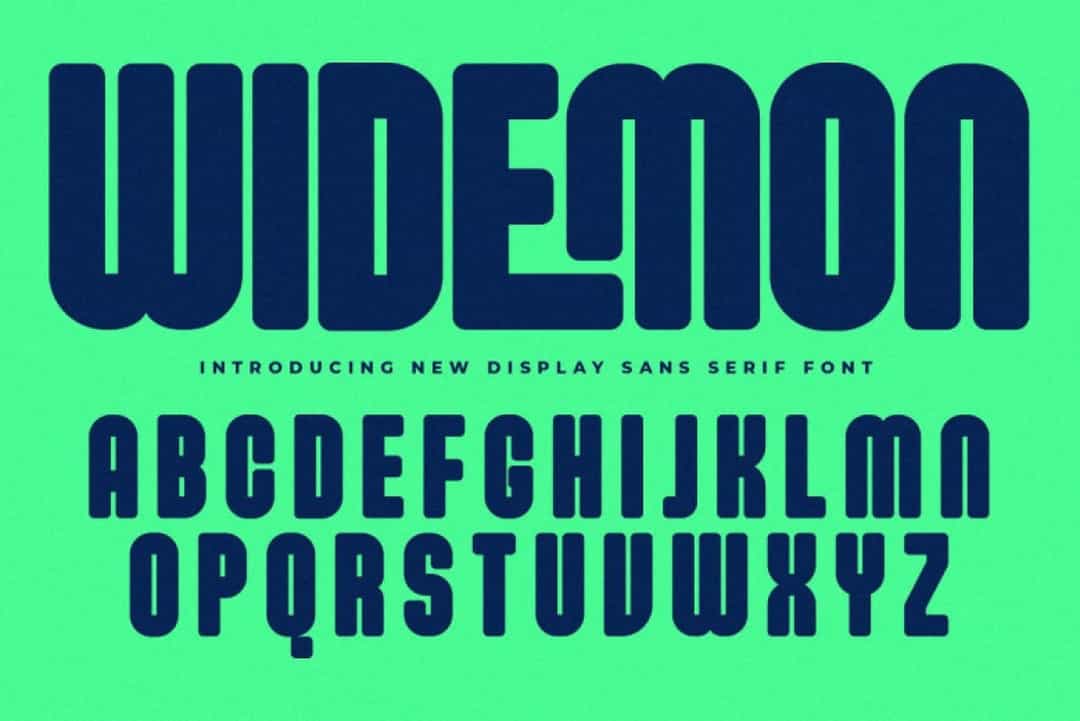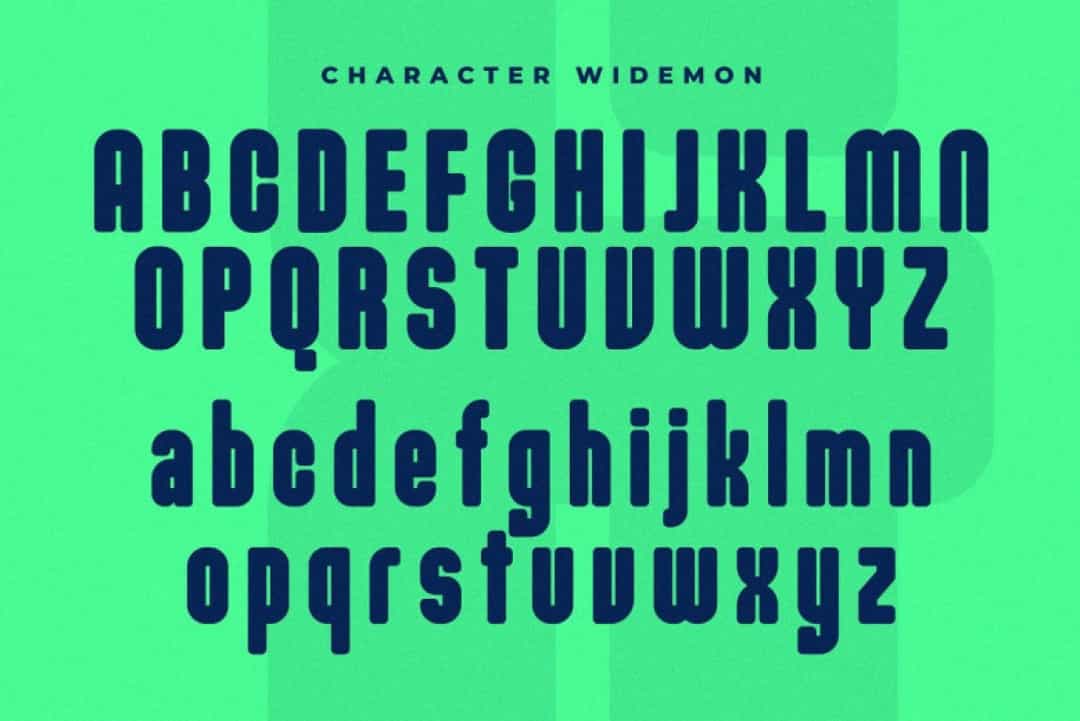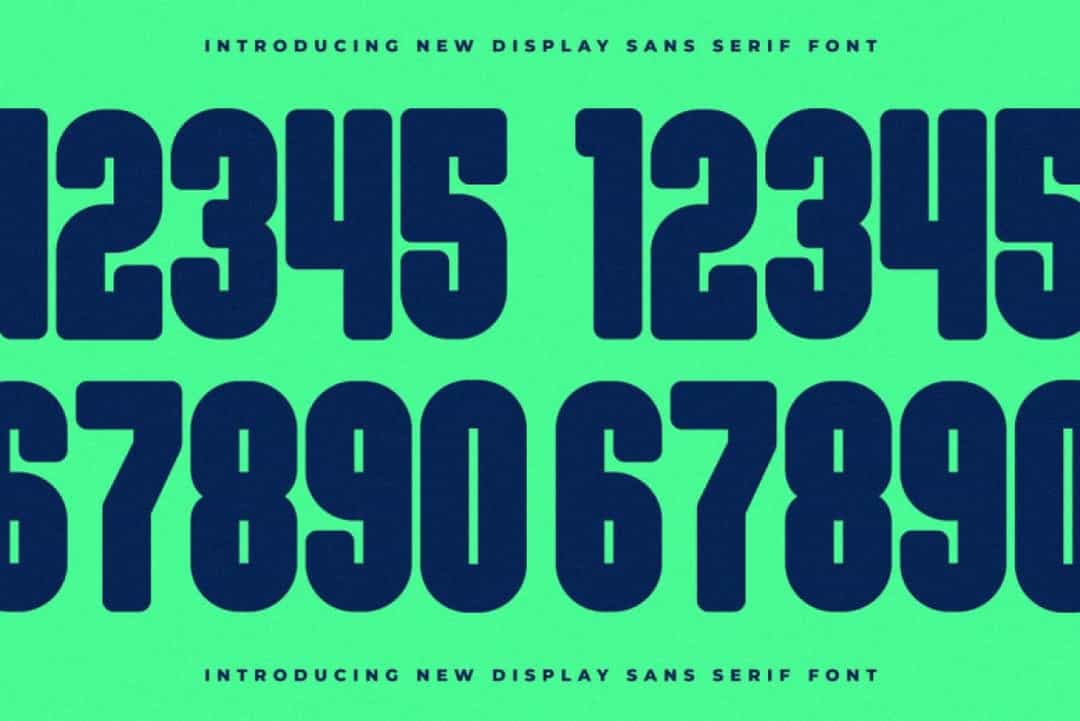
Widemon is an elegant display sans serif font with modern flair that features its distinctive style and contemporary appearance. Perfect for creating logos, movie or book titles, clothing labels, magazine letters, quotes and many other tasks; Widemon makes the perfect typeface choice!